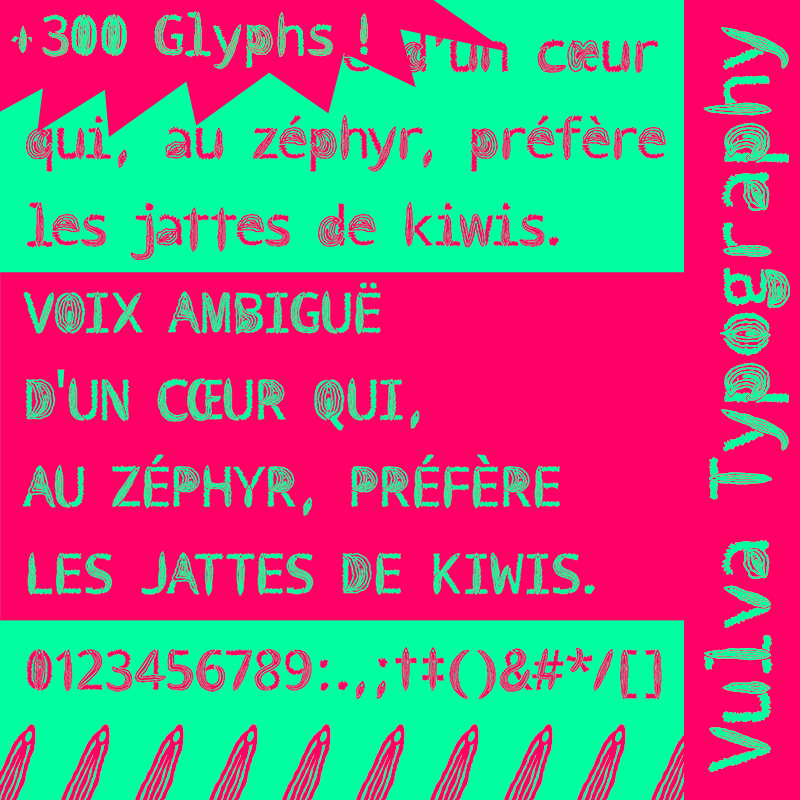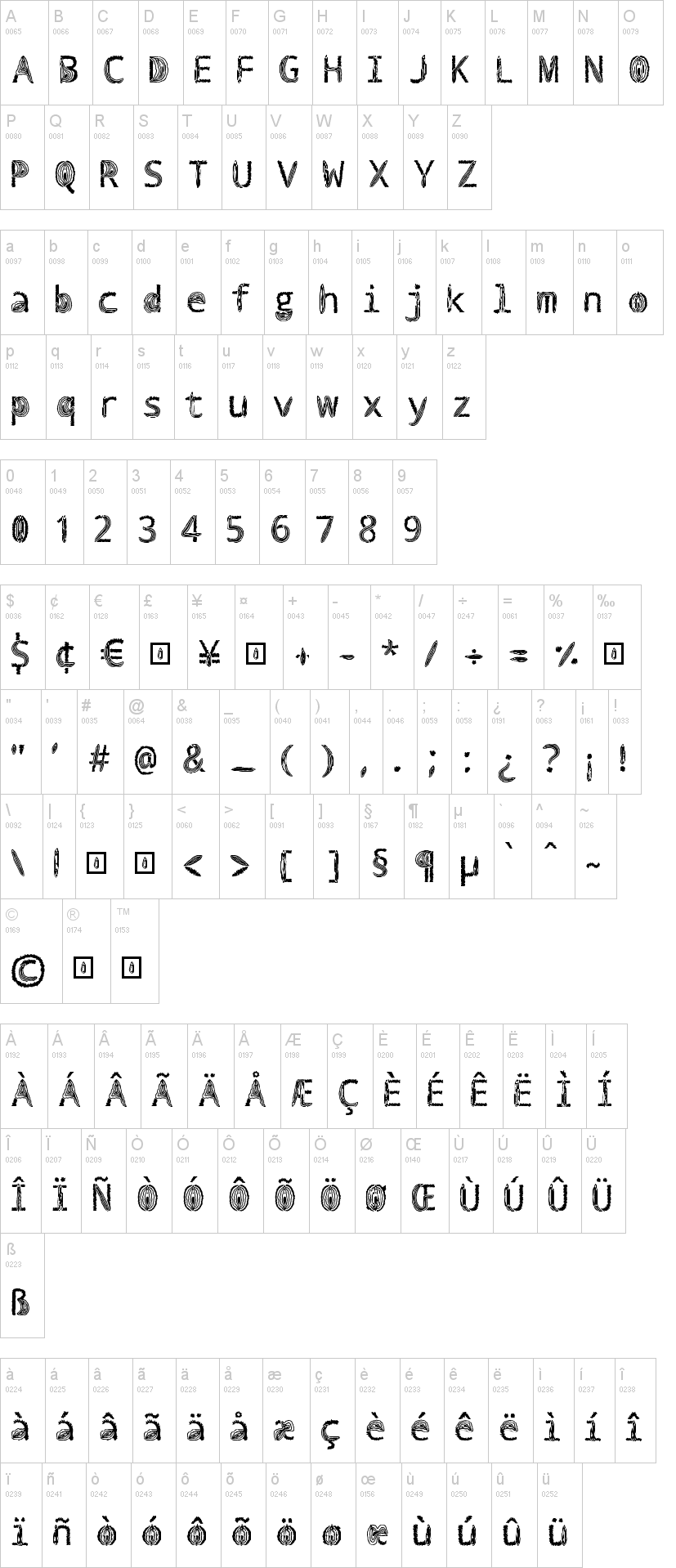
Note of the authorThis typography aims to give women a tool to appropriate their own body, in a playful and aesthetic way.
Typography created with the android application named "Fonty" ( https://play.google.com/store/apps/details?id=com.palabs.fonty&hl=en_US ) and improved with FontLab.
(A lot of glyphs for a lot of languages)